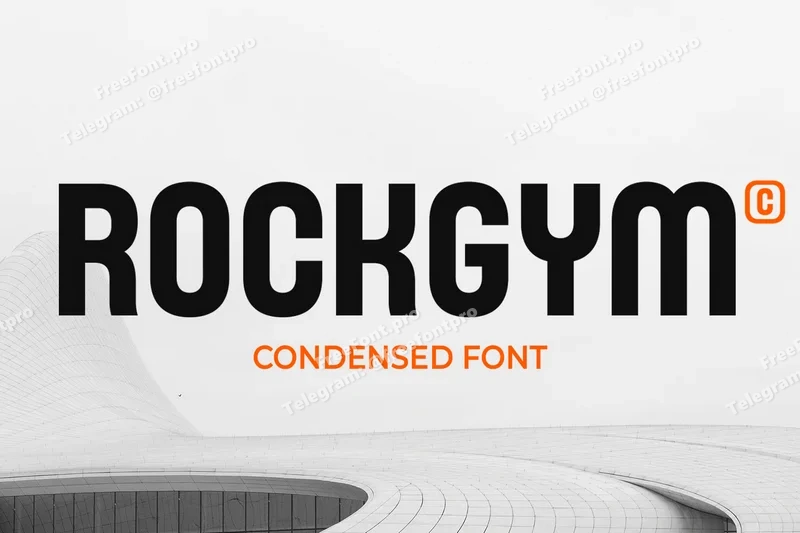
Rockgym – Condensed Font
Rockgym – Condensed Font is a strong and modern display font defined by its narrow, streamlined letterforms and confident structure. Designed for clarity and impact, it delivers a clean, space-efficient look that maintains perfect readability in both large and small sizes.
With its bold and professional feel, Rockgym is ideal for posters, headlines, sports branding, fashion, editorial layouts, and digital interfaces. The compact design allows for maximum visual presence without wasting space, making it perfect for modern, minimalist, or industrial-inspired projects.
Its geometric precision and consistent rhythm create a sleek, contemporary aesthetic suitable for both print and digital designs. Rockgym balances strength and style, ensuring every composition looks sharp and well-organized.
Perfect for logos, packaging, gym branding, and tech-inspired visuals, Rockgym – Condensed Font brings structure, power, and modern appeal to any creative project.